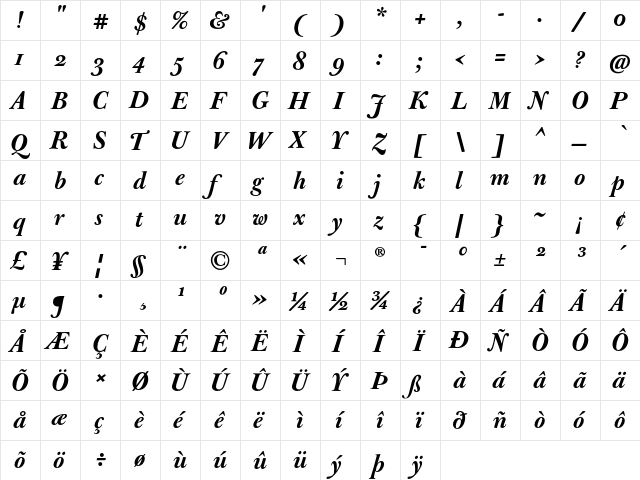
J Baskerville Med Bold Italic
Design Context for J Baskerville Med Typeface
J Baskerville Med takes a measured approach to typography — its balanced proportions and neutral character make it a reliable workhorse for both digital and print work. The slanted form adds forward momentum and visual energy. Its bold stroke weight gives it real presence on the page.
Pro Tip: Use J Baskerville Med for emphasis, pull quotes, and subheadings where its slanted energy can add rhythm to the layout.